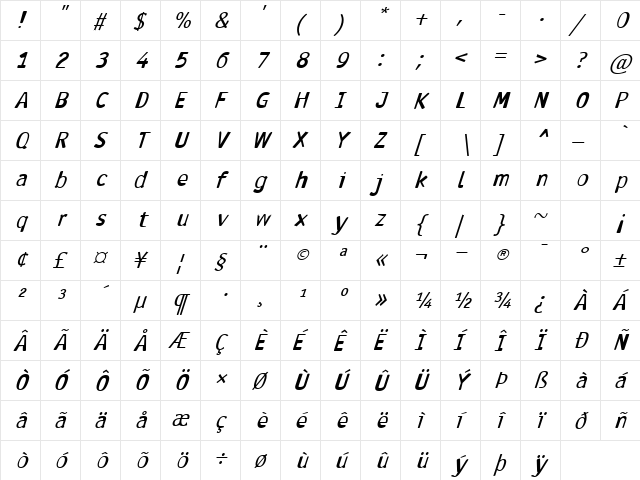
Antaviana BoldItalic
Design Context for Antaviana Typeface
Antaviana is a composed and adaptable typeface that performs quietly and consistently across a wide range of design contexts. Its italic angle brings a sense of urgency and motion to the letterforms. Its bold stroke weight gives it real presence on the page.
Pro Tip: Try Antaviana for annotation and caption copy alongside an upright companion — the contrast in angle creates a dynamic but ordered typographic system.